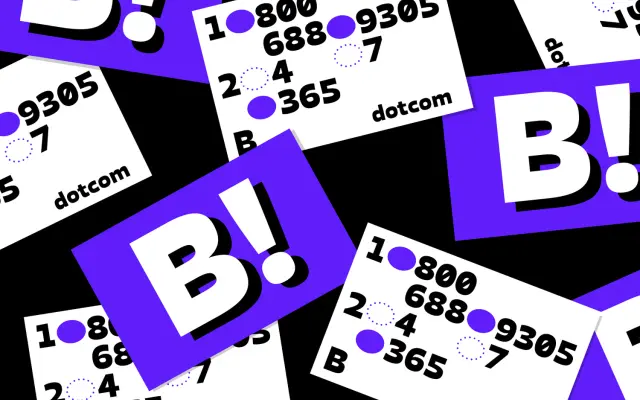
A humanist sans with reverse contrast and squarish geometry, offering six weights with matching italics and broad Latin language support.
Blom pairs heavy horizontals with modern geometry to produce a reverse-contrast humanist sans that remains legible at small sizes. Six weights run from Thin to Black, each with a matching italic, and 463 characters per style cover Western, Southern and Central European languages. OpenType features include five numeral variants, ligatures, fractions, slashed zeros and case-sensitive forms.
Described explicitly as a humanist sans with squarish character and reverse contrast; the geometric influence places it within the humanist sans category with a distinctive structural twist.